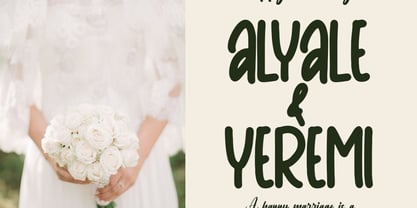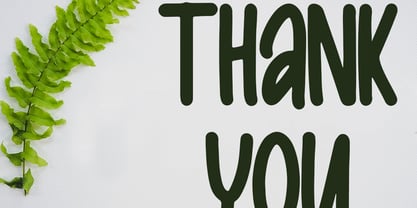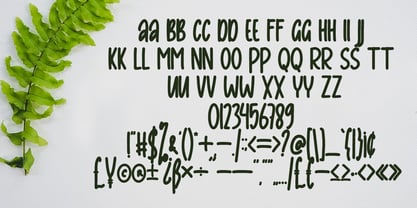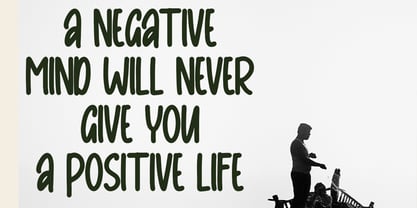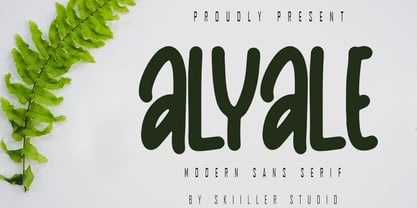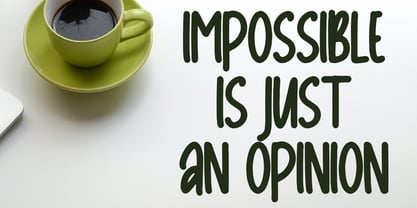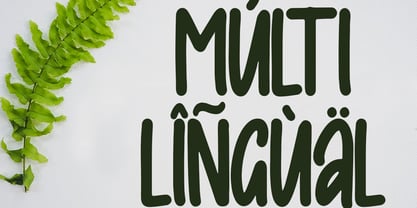
Alyale
by Skiiller Studio
The Alyale Font Family was designed by Irfan Mahmudin and published by Skiiller Studio. Alyale contains 1 styles.
Alyale is a modern sans serif font characterized by its soft, rounded forms that evoke a friendly, organic, and contemporary aesthetic. Its smooth curves and clean structure enhance its versatility, making it ideal for a variety of applications including logos, branding, product packaging, posters, invitations, and eco-themed designs. Drawing inspiration from natural shapes, Alyale seamlessly blends simplicity with personality, delivering a refreshing visual style that feels both modern and warm. Whether utilized for impactful headlines or minimalist layouts, this font adds clarity, comfort, and a distinctive touch to any creative project.
Designers: Irfan Mahmudin
Publisher: Skiiller Studio
Foundry: Skiiller Studio
Design Owner: Skiiller Studio